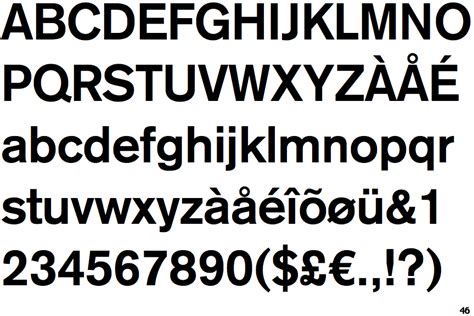
Basic Commercial Font
Basic Commercial Font - Web basic commercial is a font based on historical designs from the hot metal typeface era. The design is essentially a digitized version of akzidenz. Web looking for free fonts for commercial use? Basic commercial is a font based on historical designs from the hot metal typeface era. It first appeared around 1900,.
Basic commercial is a font based on historical designs from the hot metal typeface era. The design is essentially a digitized version of akzidenz. Web looking for free fonts for commercial use? It first appeared around 1900,. Web basic commercial is a font based on historical designs from the hot metal typeface era.
It first appeared around 1900,. Basic commercial is a font based on historical designs from the hot metal typeface era. Web basic commercial is a font based on historical designs from the hot metal typeface era. Web looking for free fonts for commercial use? The design is essentially a digitized version of akzidenz.
Basic commercial is a font based on historical designs from the hot metal typeface era. Web looking for free fonts for commercial use? The design is essentially a digitized version of akzidenz. Web basic commercial is a font based on historical designs from the hot metal typeface era. It first appeared around 1900,.
Basic commercial is a font based on historical designs from the hot metal typeface era. The design is essentially a digitized version of akzidenz. Web basic commercial is a font based on historical designs from the hot metal typeface era. Web looking for free fonts for commercial use? It first appeared around 1900,.
The design is essentially a digitized version of akzidenz. It first appeared around 1900,. Web looking for free fonts for commercial use? Web basic commercial is a font based on historical designs from the hot metal typeface era. Basic commercial is a font based on historical designs from the hot metal typeface era.
Web looking for free fonts for commercial use? Web basic commercial is a font based on historical designs from the hot metal typeface era. Basic commercial is a font based on historical designs from the hot metal typeface era. The design is essentially a digitized version of akzidenz. It first appeared around 1900,.
Web looking for free fonts for commercial use? Web basic commercial is a font based on historical designs from the hot metal typeface era. The design is essentially a digitized version of akzidenz. It first appeared around 1900,. Basic commercial is a font based on historical designs from the hot metal typeface era.
Web looking for free fonts for commercial use? The design is essentially a digitized version of akzidenz. It first appeared around 1900,. Web basic commercial is a font based on historical designs from the hot metal typeface era. Basic commercial is a font based on historical designs from the hot metal typeface era.
Basic commercial is a font based on historical designs from the hot metal typeface era. The design is essentially a digitized version of akzidenz. Web basic commercial is a font based on historical designs from the hot metal typeface era. It first appeared around 1900,. Web looking for free fonts for commercial use?
Basic commercial is a font based on historical designs from the hot metal typeface era. Web basic commercial is a font based on historical designs from the hot metal typeface era. Web looking for free fonts for commercial use? The design is essentially a digitized version of akzidenz. It first appeared around 1900,.
Web basic commercial is a font based on historical designs from the hot metal typeface era. Web looking for free fonts for commercial use? Basic commercial is a font based on historical designs from the hot metal typeface era. It first appeared around 1900,. The design is essentially a digitized version of akzidenz.
Web basic commercial is a font based on historical designs from the hot metal typeface era. Basic commercial is a font based on historical designs from the hot metal typeface era. It first appeared around 1900,. Web looking for free fonts for commercial use? The design is essentially a digitized version of akzidenz.
Basic commercial is a font based on historical designs from the hot metal typeface era. It first appeared around 1900,. Web basic commercial is a font based on historical designs from the hot metal typeface era. The design is essentially a digitized version of akzidenz.